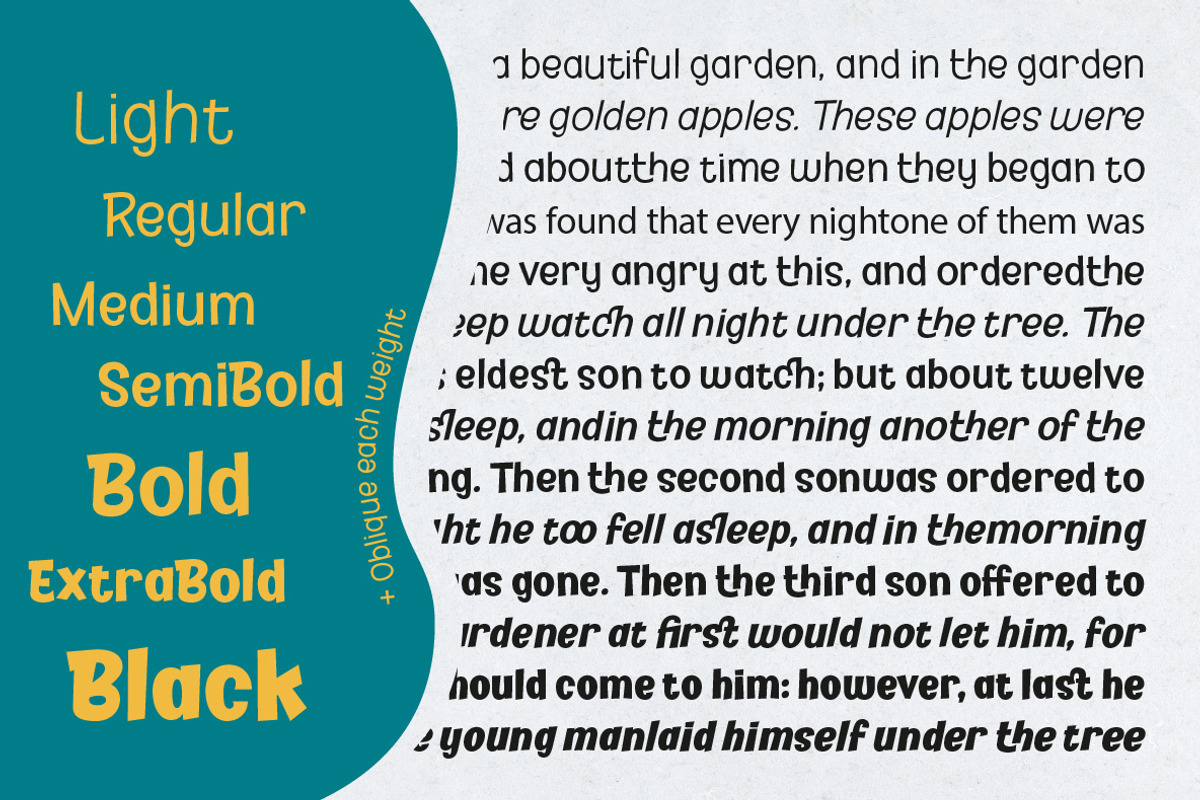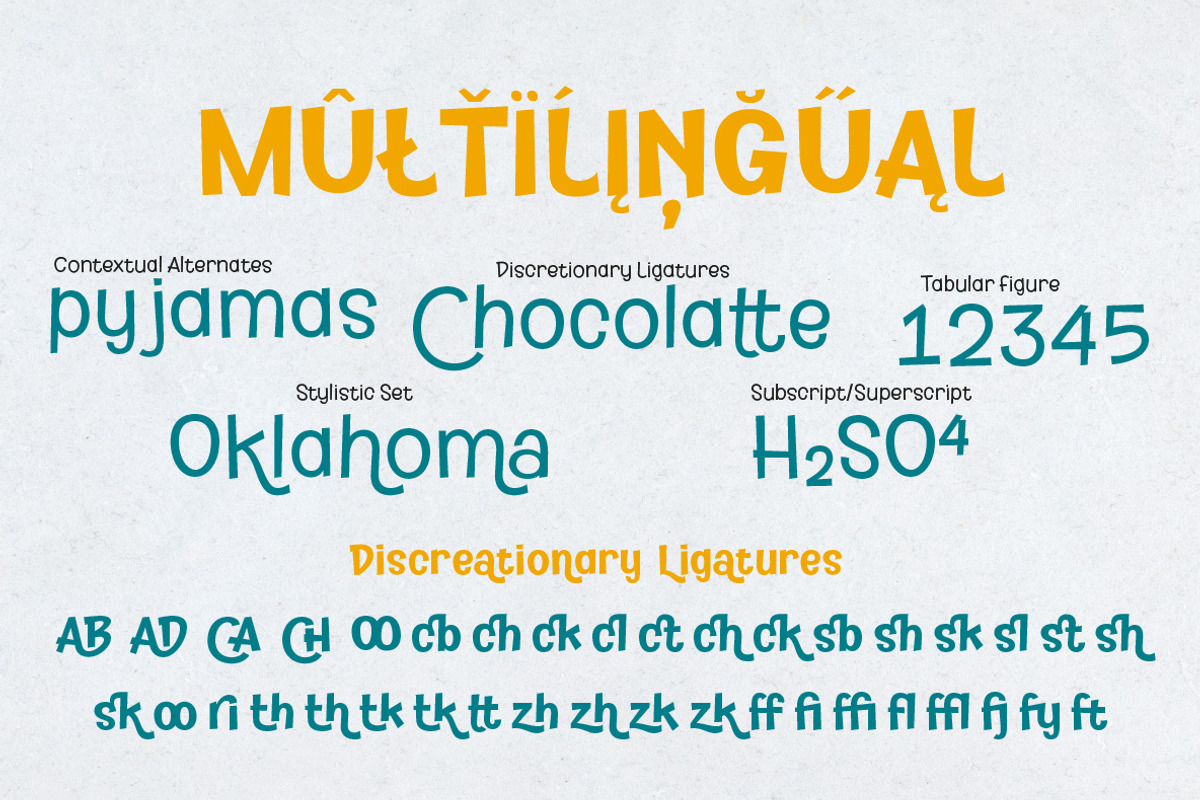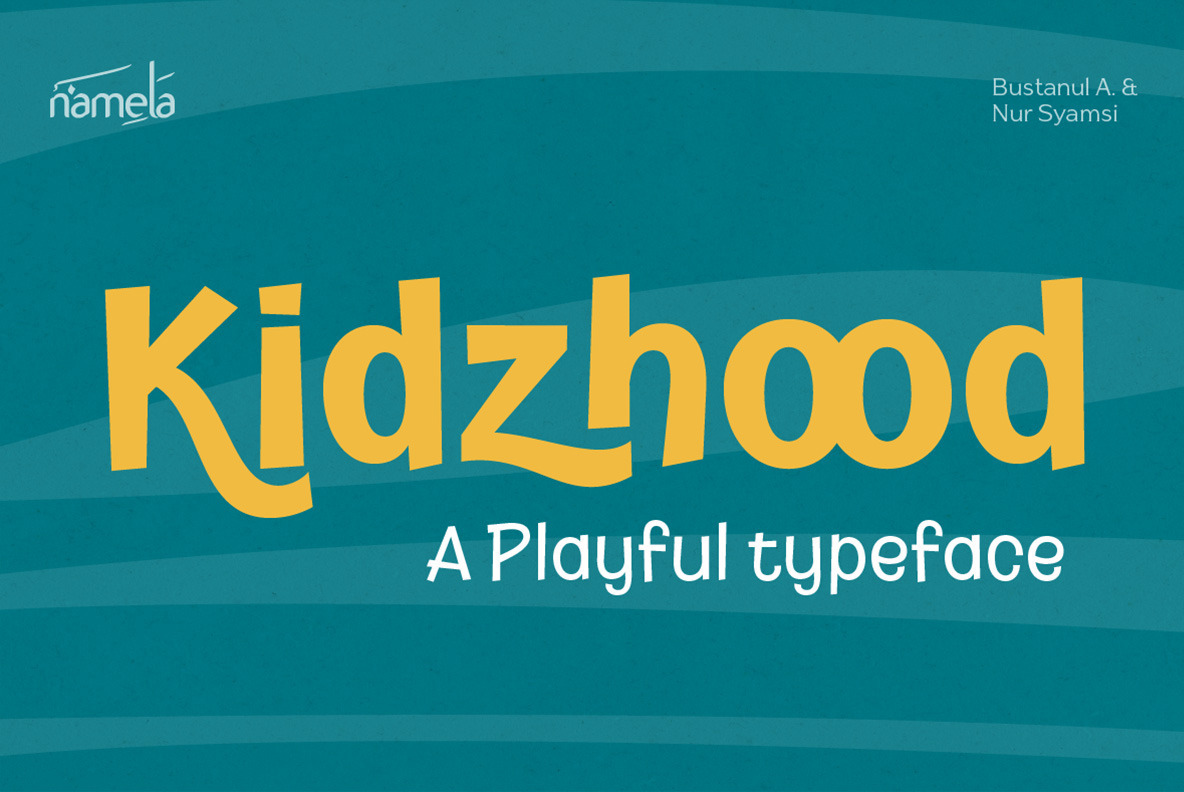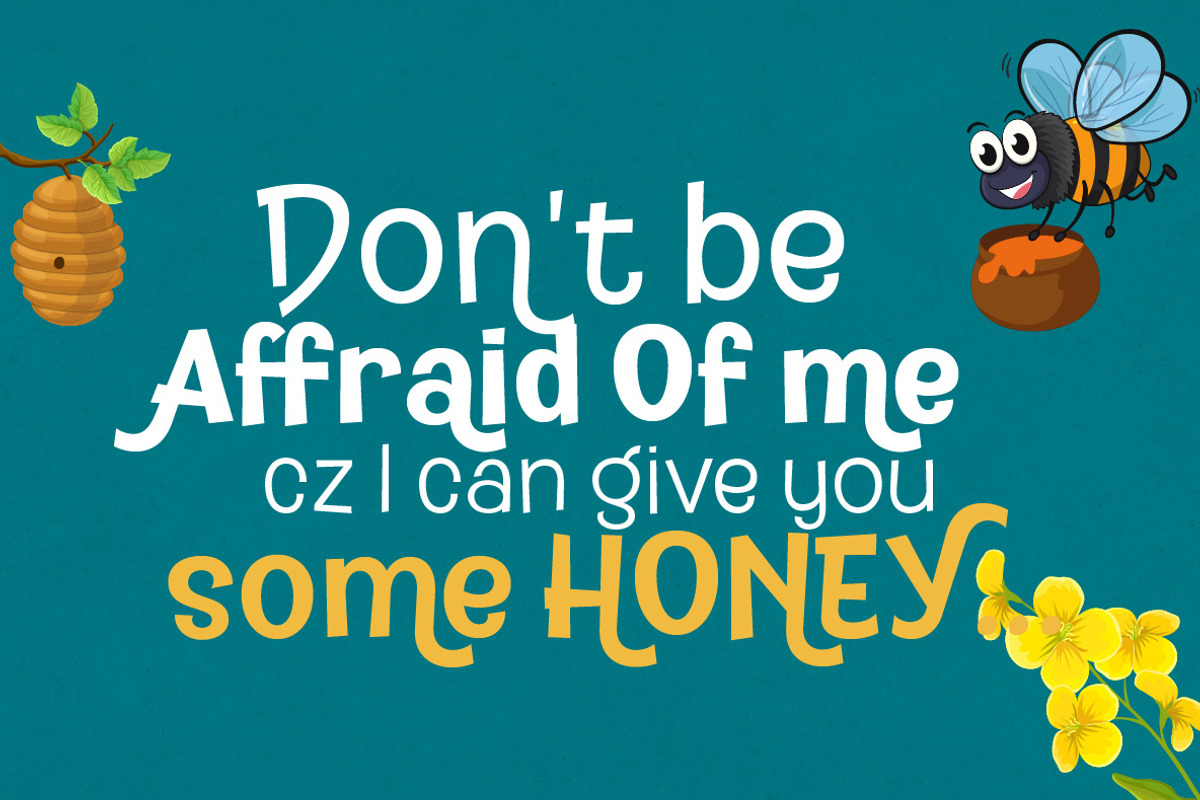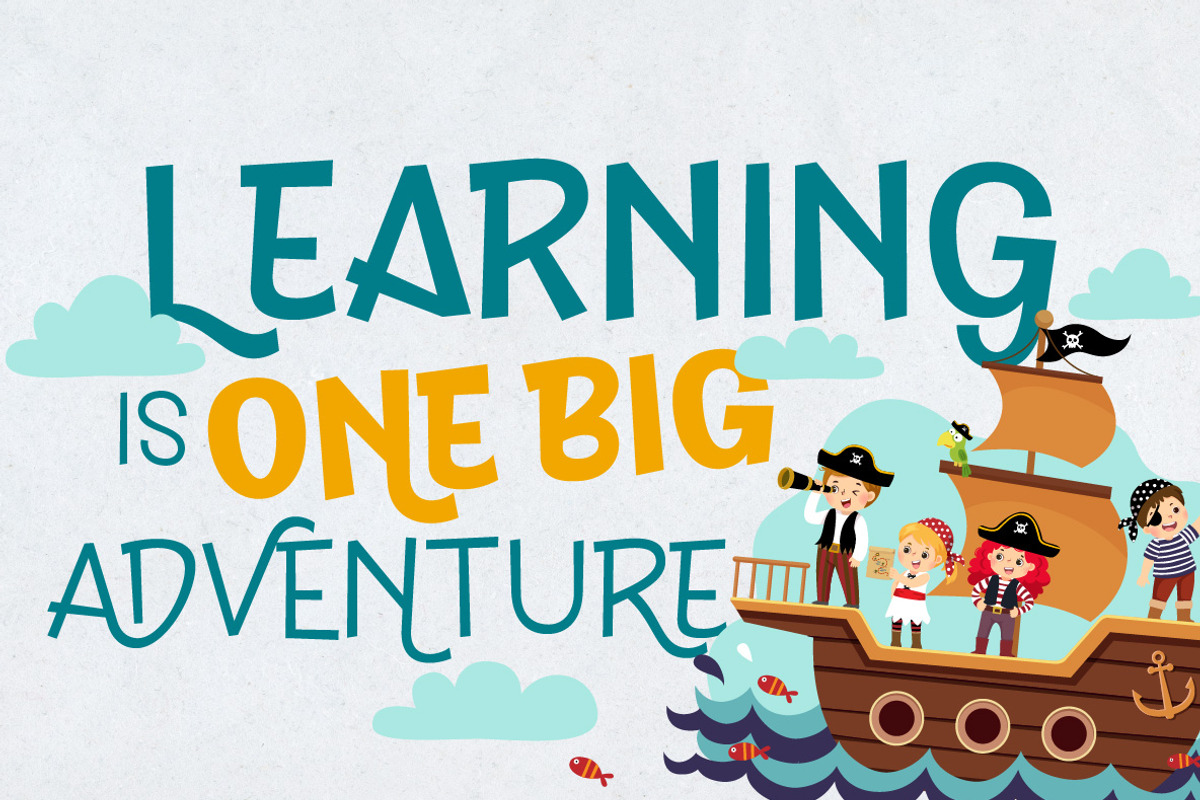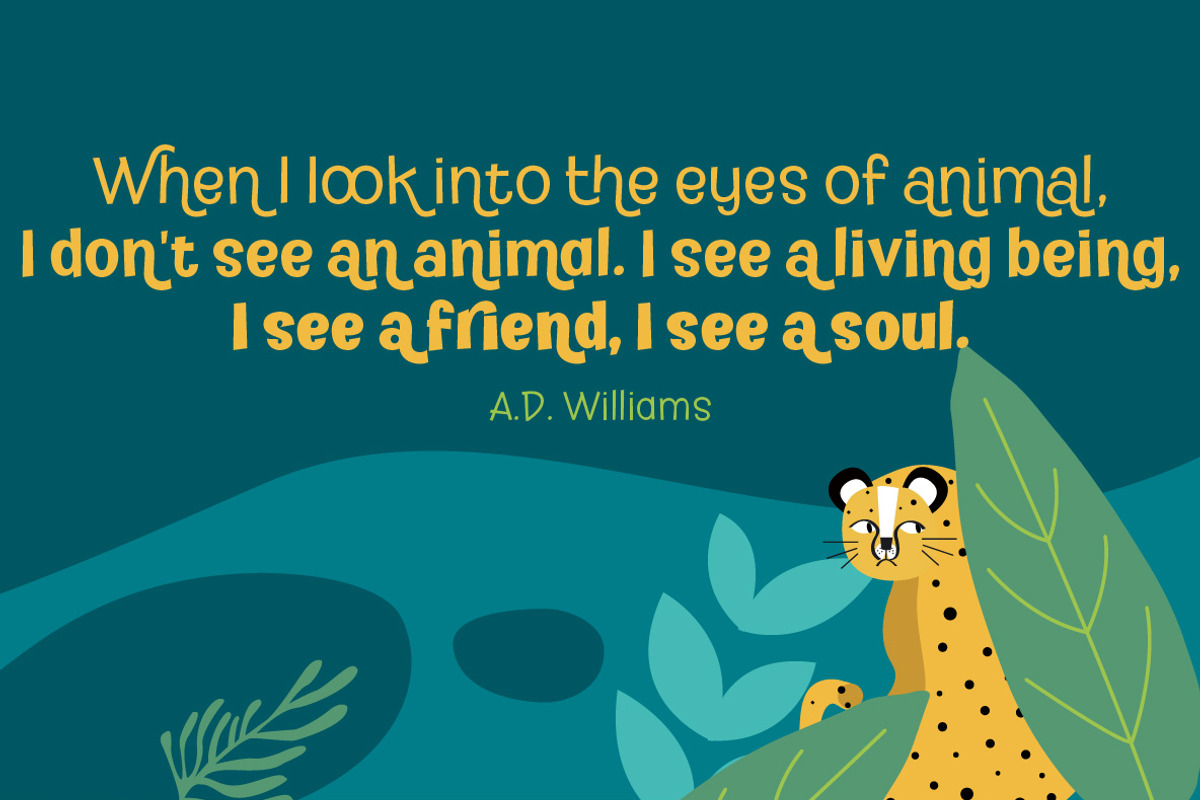
Kidzhood - Fun & Playful Font Family
Kidzhood Fun & Playful font is a delightful and whimsical typeface that brings the charm of childhood to life. Its characters are imbued with a sense of humor and flexibility, mirroring the endearing qualities of childish innocence. With its adorable letterforms and captivating ligatures.
Kidzhood Font exudes a playful and inviting vibe, making it the perfect choice for projects that aim to capture the spirit of youth and joy.